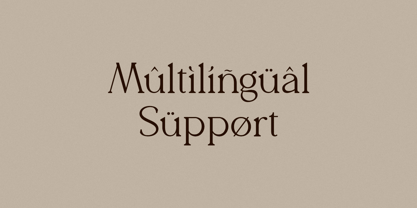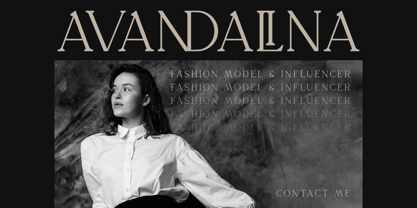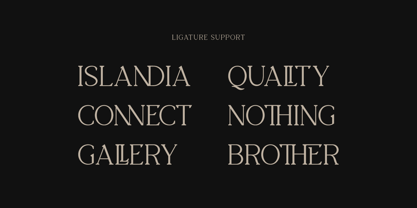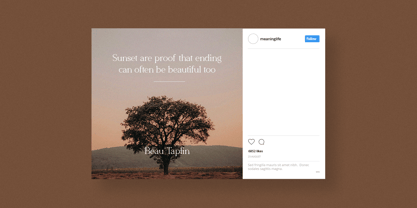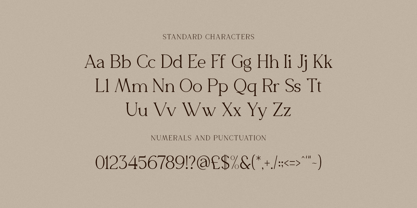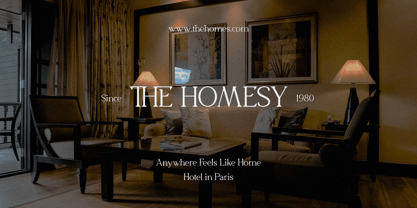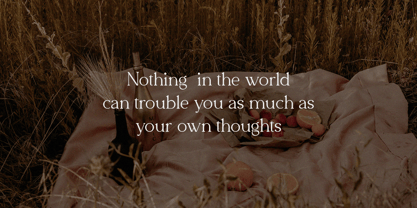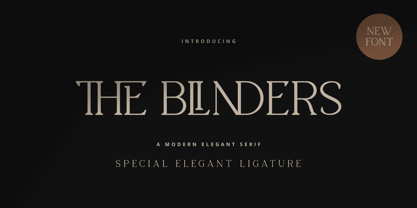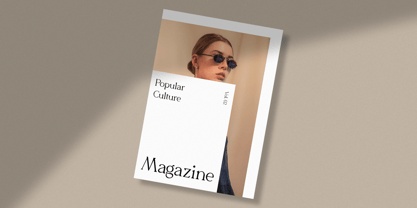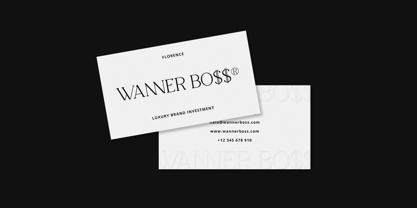
The Blinders
The The Blinders Font Family was designed by Hayinah and published by Rockboys Studio. The Blinders contains 1 styles. More about this family
The Blinders is an elegant and thin lettered serif font. It maintains its classy calligraphic influences while feeling contemporary and fresh. Fall in love with it and bring your projects to the highest levels!